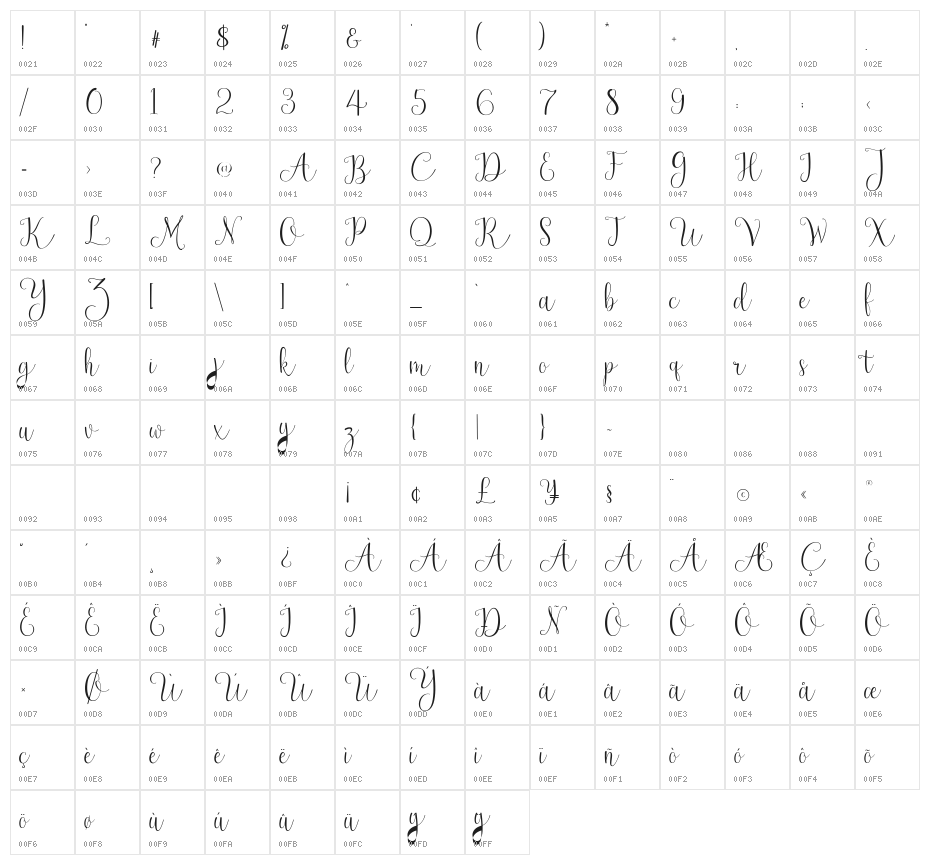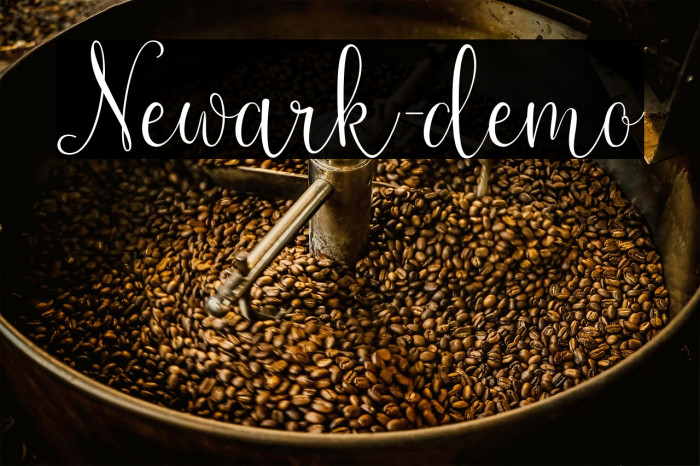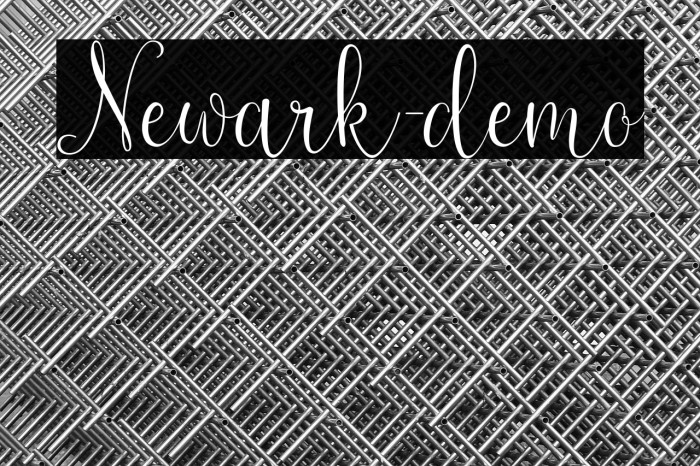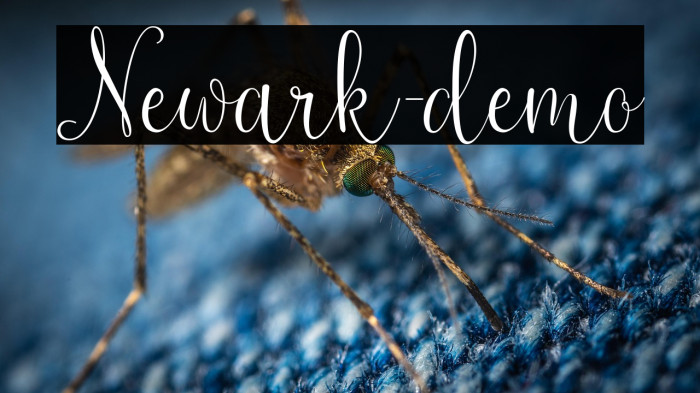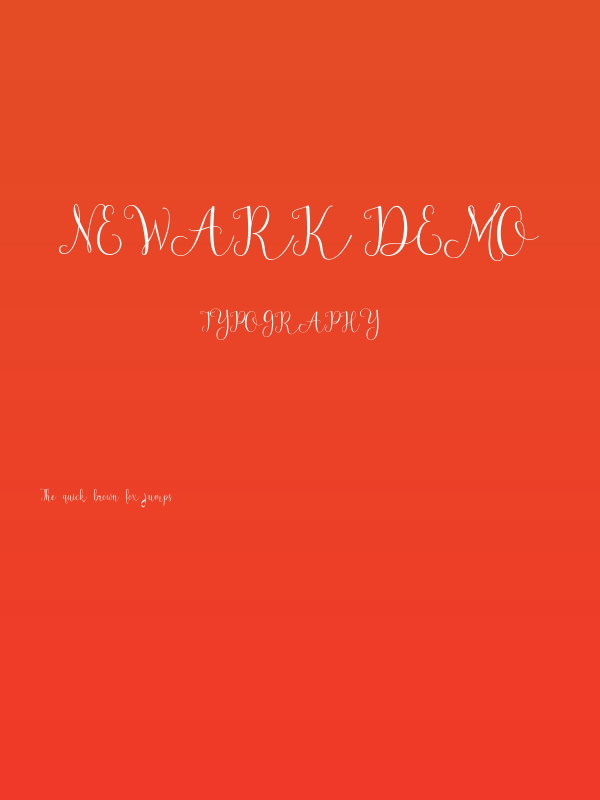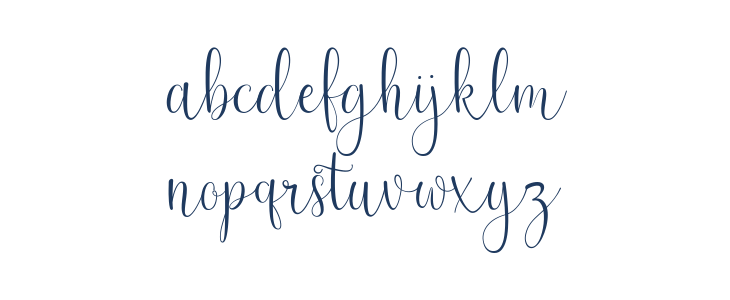
Newark-demo Font
Newark-demo Description
This elegant script font features a flowing, cursive style with intricate loops and swashes. The uppercase letters are characterized by their ornate and decorative flourishes, making them stand out with a sense of sophistication and grace. The lowercase letters maintain a consistent fluidity, with gentle curves and a harmonious balance between each character. The numerals are styled to match the overall script aesthetic, adding a touch of elegance to numerical expressions. Special characters are thoughtfully designed to integrate seamlessly with the rest of the font, ensuring a cohesive appearance across all text. This font exudes a sense of charm and refinement, ideal for projects that require a personal and artistic touch.